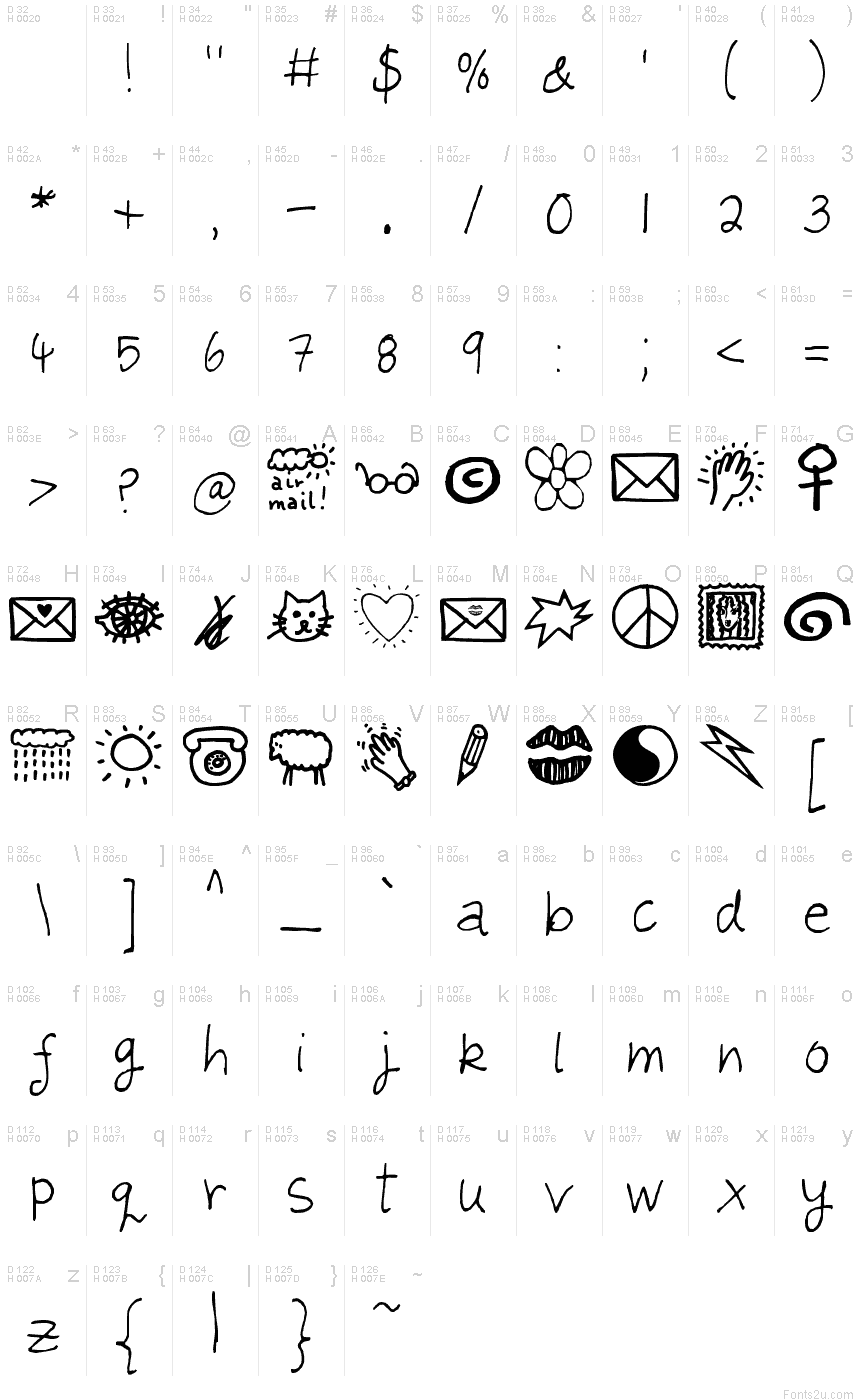
julesgirltalk Regular
Julesgirltalk font by Julesart is a free handwritten font that feels like a quick note passed across a classroom desk. Its thin, inky lines wobble just enough to feel human, with loose curves and slightly uneven spacing that read as spontaneous rather than messy. The result is a chatty, diary-style typeface that instantly softens layouts and makes digital text feel like it was scribbled with a favorite pen.
Using Julesgirltalk, you can bring warmth to journal-style blog headers, zines, casual invitations, greeting cards, classroom worksheets, and quote graphics for social media. This free font shines at medium to large sizes, where its scratchy texture and easy rhythm stay legible. Try pairing Julesgirltalk with a clean sans serif for body text to keep designs readable while letting the handwriting carry the personality.